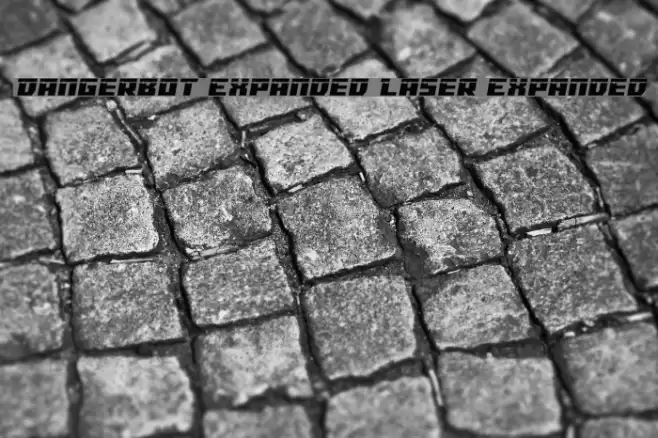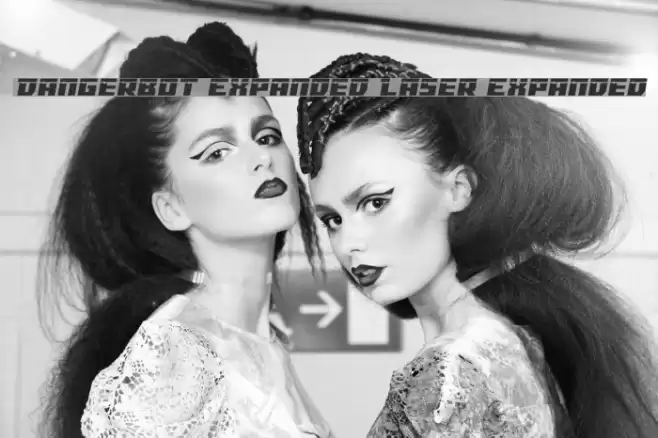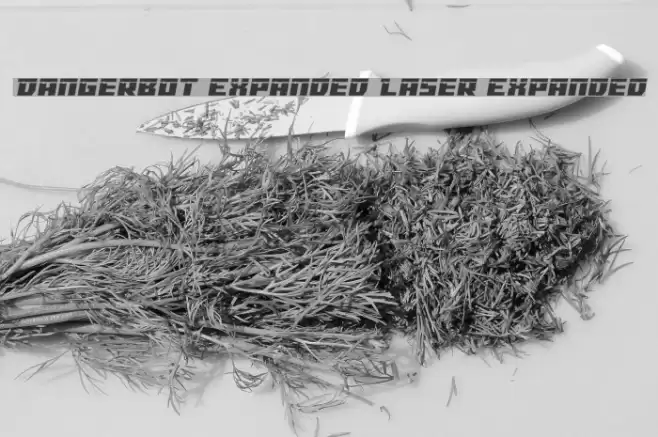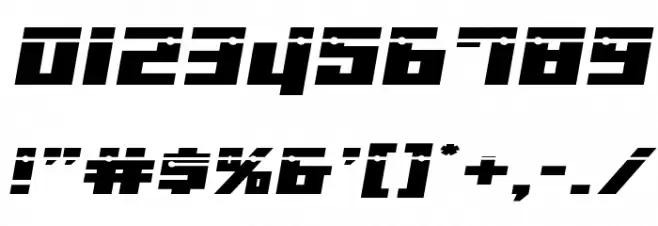
Dangerbot Expanded Laser Expanded Font
Dangerbot Expanded Laser Expanded Description
This font features a bold and futuristic design with sharp, angular edges and a distinct geometric style. The characters are wide and expanded, giving a sense of strength and modernity. The uppercase and lowercase letters maintain a consistent style, with a unique cut-out pattern that adds a dynamic and tech-inspired look. The numbers and special characters follow the same design principles, ensuring uniformity across all glyphs. This font is ideal for projects that require a strong visual impact and a contemporary aesthetic.
A bold, futuristic font with angular, geometric shapes and a tech-inspired style from Sci-fi fonts.
- Proposed Projects: Ideal for sci-fi themed designs, video game titles, tech branding, and futuristic posters.